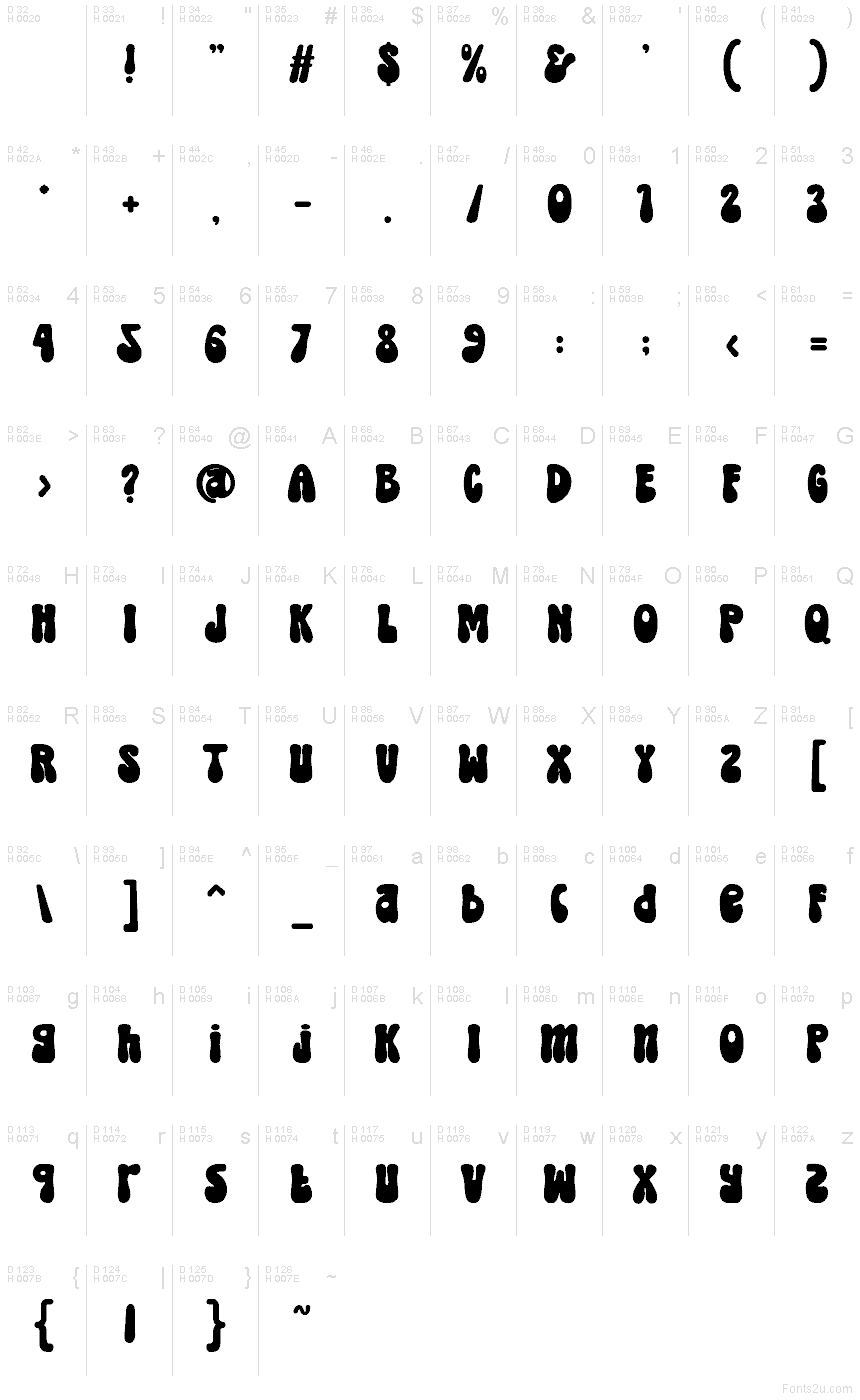
Stick Figure One
Stick Figure One font by PutraCetol Studio is a condensed groovy display font with bold weight. The font evokes a casual appearance and playful mood with the free-flowing nature of the organic shapes. It carries a lovely vibe, jumps off the page, and adds interest to any design work.